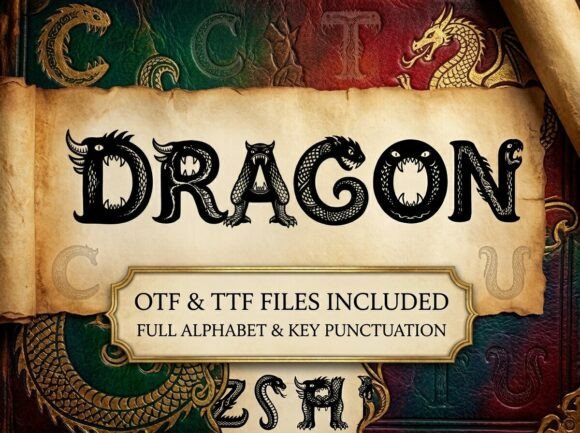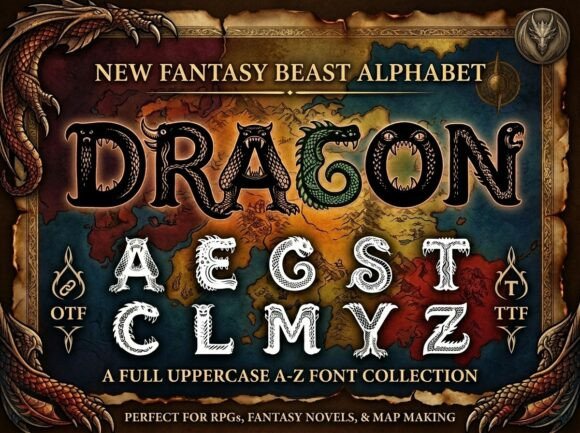
Bring Mythical Majesty to Your Designs with Dragon Font
Imagine being able to harness the raw power and majesty of ancient mythical beasts in your digital cartography, storytelling, and design projects. With Dragon, a breathtaking new fantasy beast alphabet font, you can do just that. This extraordinary font redefines traditional display lettering by transforming every character path from A to Z into a living creature silhouette, transporting your audience to a realm of wonder and awe.
The Artistry of Dragon Font
The uppercase structures of Dragon font feature an intricate array of mythical creatures, including slithering serpents coiling into curves, snapping jaws with razor-sharp monster teeth, scaled lizard tails, and clawed beast feet stretching down along the baselines. Each character is meticulously crafted to evoke the mystique and grandeur of legendary creatures, making it an absolute powerhouse creative choice for:
- Tabletop RPG map-making
- Fantasy world-building
- Lore novels
- Tabletop gaming titles
- Fantasy book covers
- Medieval board game packaging
- Mythical card deck logos
- Historical reenactment flyers
Unparalleled Readability and Versatility
One of the standout features of Dragon font is its crisp, clean linework, which maintains excellent readability against highly detailed backgrounds, aged leather grids, or vintage scroll canvases. This versatility makes it an ideal choice for designers and crafters who want to add a touch of mythical grandeur to their projects without sacrificing legibility.
With Dragon font, the creative possibilities are endless. Imagine crafting a tabletop RPG map that transports players to a realm of mythical wonder, or designing a fantasy book cover that captures the essence of legendary creatures. The font’s unique blend of mythology and artistry makes it perfect for:
- Crafting compelling titles and headings for fantasy novels and lore books
- Designing eye-catching packaging for medieval board games and mythical card decks
- Creating historical reenactment flyers that evoke the grandeur of ancient times
- Adding a touch of mythical majesty to digital cartography and storytelling projects
Why Choose Dragon Font?
So why choose Dragon font for your design projects? Here are just a few compelling reasons:
- Unique and captivating design: Dragon font offers a truly one-of-a-kind design that will set your projects apart from the crowd.
- Excellent readability: The font’s crisp, clean linework ensures that your text remains legible, even against complex backgrounds.
- Versatility: Dragon font is perfect for a wide range of design projects, from tabletop gaming to fantasy novels and historical reenactments.
- Instant recognition: The font’s mythical creatures will instantly transport your audience to a realm of wonder and awe, making your projects more engaging and memorable.
In conclusion, Dragon font is a game-changer for designers and crafters who want to add a touch of mythical grandeur to their projects. With its unique blend of mythology and artistry, excellent readability, and versatility, this font is perfect for a wide range of design applications. Whether you’re crafting a tabletop RPG map, designing a fantasy book cover, or creating historical reenactment flyers, Dragon font is the perfect choice for bringing mythical majesty to your designs.